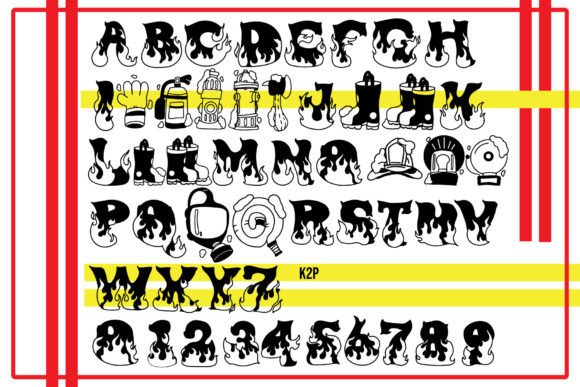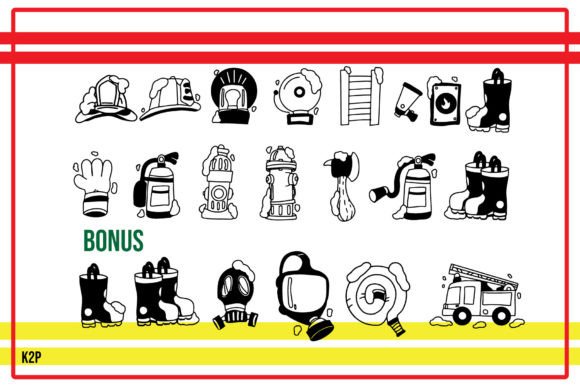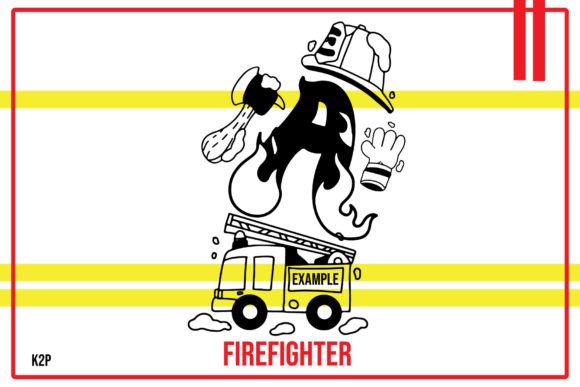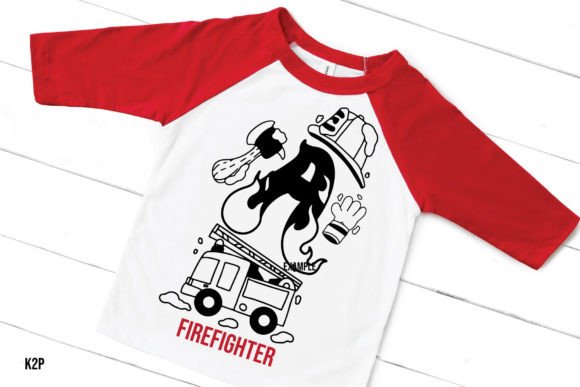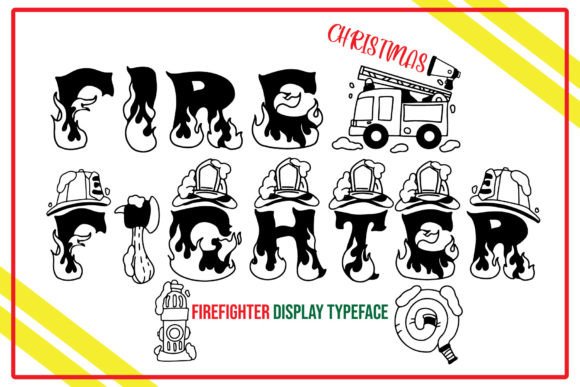
Deck the Halls with Firefighter Christmas Font: A Fun and Unique Decorative Font
Are you looking for a font that adds a touch of excitement and playfulness to your designs? Look no further than the Firefighter Christmas Font! This fun, retro, and unique decorative font is incredibly versatile and suitable for a wide spectrum of applications. Whether you’re a designer, crafter, or DIY enthusiast, this font is sure to ignite your creativity and inspire your next project.
What Makes Firefighter Christmas Font So Special?
The Firefighter Christmas Font is a one-of-a-kind decorative font that combines the spirit of firefighting with the joy and magic of Christmas. Its unique design features bold, playful letters that are reminiscent of vintage fire trucks and holiday decorations. The font’s retro aesthetic is sure to evoke a sense of nostalgia and whimsy, making it perfect for a variety of creative projects.
Key Features of Firefighter Christmas Font
• Unique and playful design: The Firefighter Christmas Font features bold, decorative letters that are sure to add a touch of excitement to your designs.
• Retro aesthetic: The font’s vintage-inspired design is reminiscent of classic fire trucks and holiday decorations.
• Incredibly versatile: The Firefighter Christmas Font is suitable for a wide range of applications, from holiday cards and decorations to craft projects and DIY signs.
• Easily readable: Despite its decorative nature, the font is still easily readable, making it perfect for titles, headings, and short messages.
Uses for Firefighter Christmas Font
The Firefighter Christmas Font is perfect for a variety of creative projects, including:
• Holiday cards and invitations: Add a touch of excitement and playfulness to your holiday cards and invitations with this unique font.
• DIY decorations and signs: Use the Firefighter Christmas Font to create eye-catching decorations and signs for your home or office.
• Craft projects: This font is perfect for a variety of craft projects, from scrapbooking and journaling to paper crafting and mixed media.
• Social media graphics: Add a touch of whimsy and fun to your social media graphics and posts with this unique font.
Tips for Using Firefighter Christmas Font
Here are a few tips for using the Firefighter Christmas Font in your designs:
• Use it sparingly: While the Firefighter Christmas Font is fun and playful, it can be overwhelming if used too much. Use it sparingly to add a touch of excitement to your designs.
• Pair it with complementary fonts: Pair the Firefighter Christmas Font with complementary fonts, such as a clean sans-serif font, to create visual interest and contrast.
• Experiment with colors: The Firefighter Christmas Font looks great in a variety of colors, from bold and bright to more muted and subtle.
The Firefighter Christmas Font is a fun, unique, and versatile decorative font that’s perfect for designers, crafters, and DIY enthusiasts. Its retro aesthetic and playful design make it a great addition to any creative project, from holiday cards and decorations to craft projects and DIY signs. So why not give it a try and see what amazing creations you can come up with?